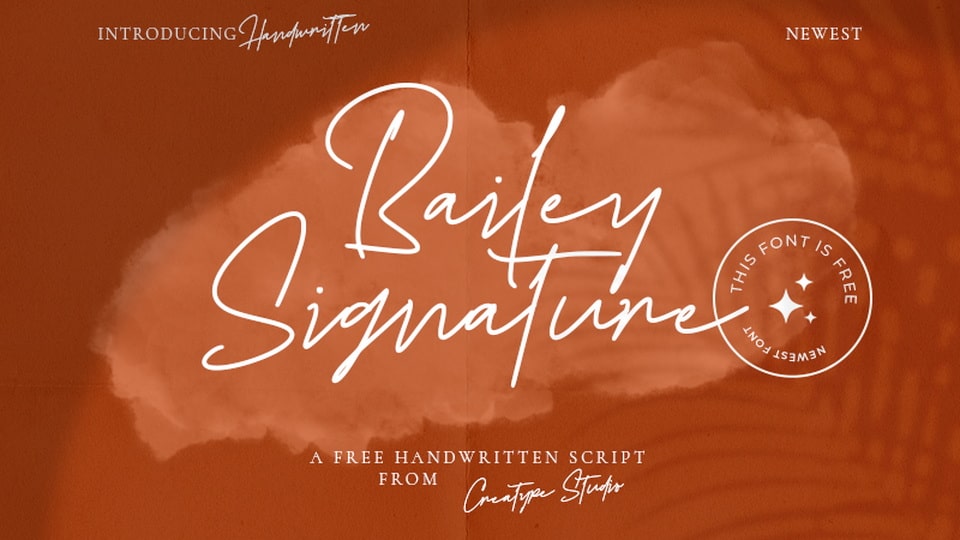
Download Bailey Signature font, a simple and casual handwritten typeface that captures the essence of an effortless signature with its natural flow and clean strokes.